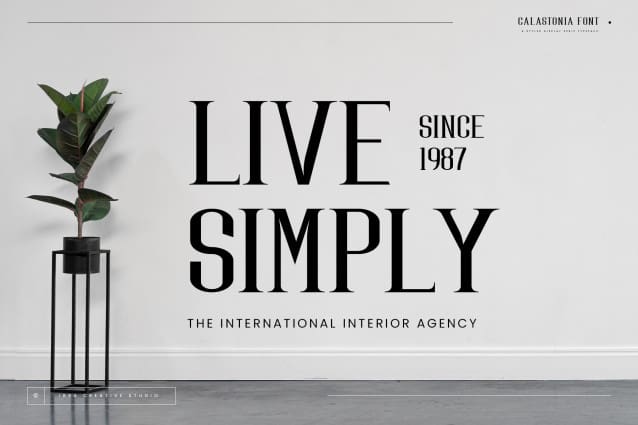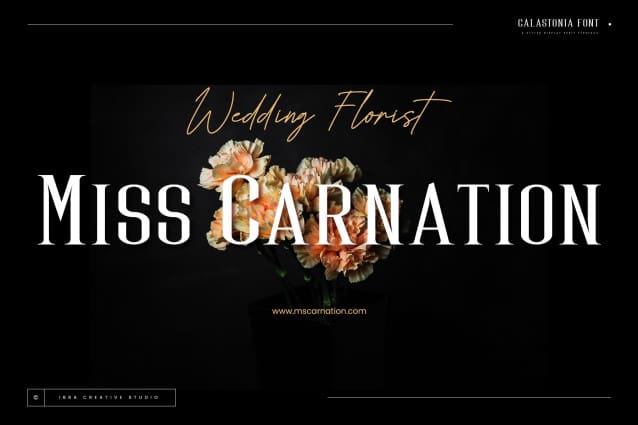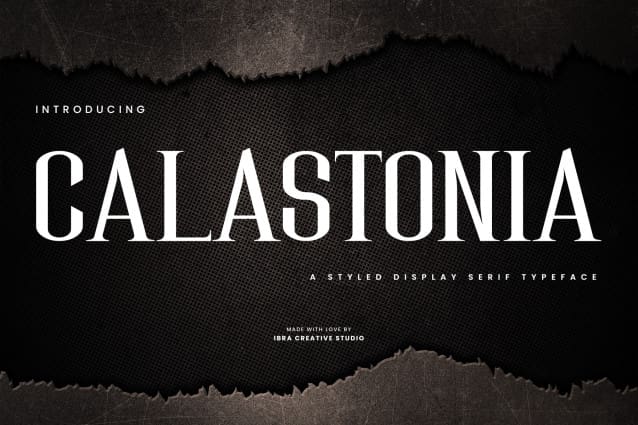
Calastonia Font
Calastonia Font is a meticulously crafted styled display serif typeface that exudes a perfect blend of sophistication and modern elegance. With its distinct letterforms and refined details, Calastonia brings a timeless charm to any design project. The typeface showcases a balanced combination of serifs and graceful strokes, creating a harmonious visual appeal that captures attention and conveys a sense of luxury. Whether used for editorial layouts, branding, or headlines, Calastonia’s unique personality shines through, imparting a touch of classic beauty with a contemporary twist. Its versatile design ensures readability across various applications while adding a touch of refinement to any creative endeavor.
Calastonia Font is perfect for branding projects, logo, wedding designs, social media posts, advertisements, product packaging, product designs, label, photography, watermark, invitation, stationery, game, fashion and any projects.